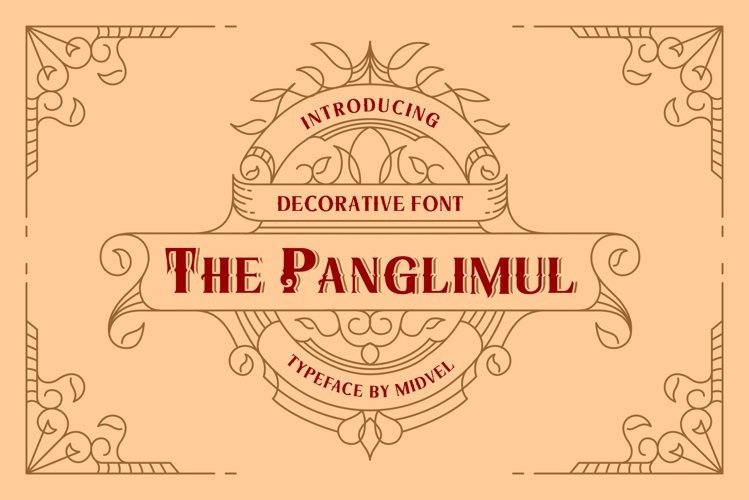
The Panglimul Display Font
Introducing The Panglimul Display Font with vintage taste can make your logotype become more interesting. Best Panglimul font with special alternative glyphs, and multilingual support. inspired by the decorative arts and architecture movement.
You will get ornament vector as a bonus, so you can combine with font to make beatutiful design. This font suitable to create design for product label, store name, poster, mug design, wedding sign, apparel, ect.